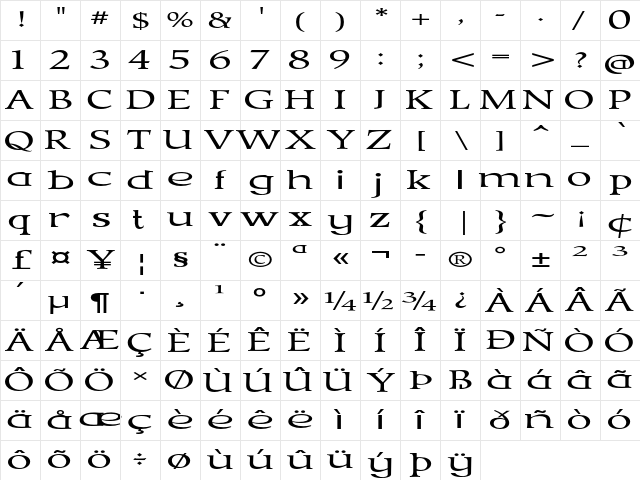
Talimino Extra-expanded Regular
Style: Extra-expanded Regular
Talimino Family
Talimino Extra-expanded Regular
Design Context for Talimino
Talimino is a composed and adaptable typeface that performs quietly and consistently across a wide range of design contexts.